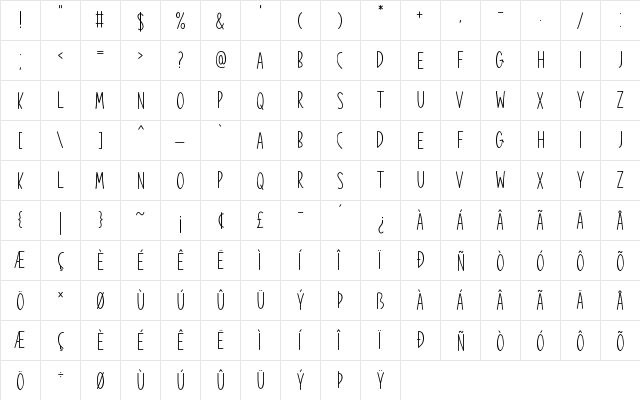
Fallen Dreamer Regular
Design Context for Fallen Dreamer Typeface
Fallen Dreamer offers clean, dependable letterforms without strong stylistic allegiance, making it a practical choice for designers who need flexibility.